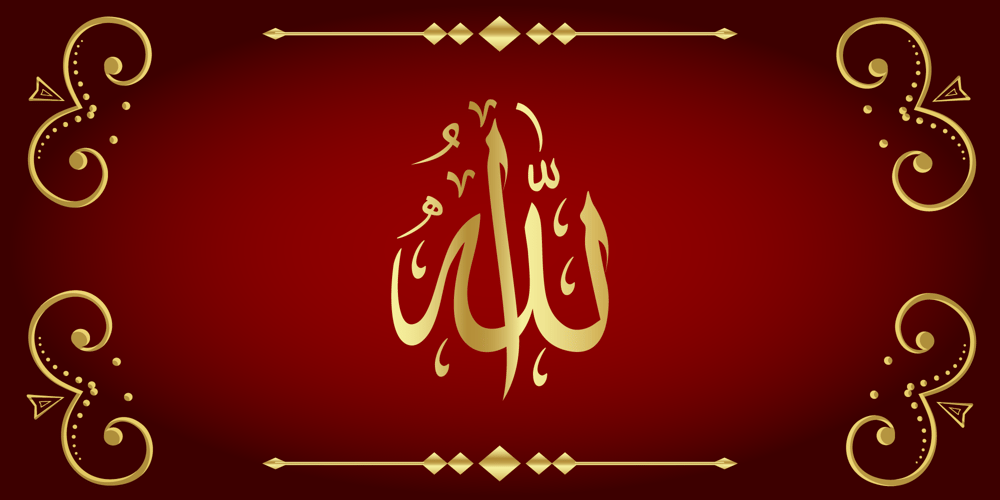
99 Names of ALLAH Pilot
99 Names of ALLAH Pilot font
99 Names of ALLAH Pilot Font Family was designed by Ibrahim Abdo and published by Islamic Calligraphy75. 99 Names of ALLAH Pilot contains 1 styles and family package options. We have transformed the “99 names of ALLAH” into a font. That means each key on your keyboard represents 1 of the 99 names of ALLAH Aaza Wajal. The fonts work with both the English and Arabic Keyboards.We call this Calligraphy “Pilot” because it was the very first one we produced. The first “Alef” doesn’t have a “hamzit wasel” nor a “fatha”, this indicates to skip the pronunciation of that letter. So instead of saying “AR-RAHMAAN” you say “R-RAHMAN”. (in the zip file you will find a pdf file explaining the differences in the “harakat”, pronunciation and spelling according to the Holy Quran). Decorative letters used in this calligraphy: “Mim, Aain, Sin, HHe, He, Kaf & Alef”.Purpose & use:- Writers: Highlight the names in your texts in beautiful Islamic calligraphy.- Editors: Use with kinetic typography templates (AE) & editing software. – Designers: The very small details in the names does not affect the quality. Rest assured it is flawless.The MOST IMPORTANT THING about this list is that all the names are 100% ERROR FREE, and you can USE THEM WITH YOUR EYES CLOSED. All the “Tachkilat” are 100% ERROR FREE, all the “Spelling” is 100% ERROR FREE, and they all have been written in accordance with the Holy Quran. No names are missing and no names are duplicated. The list is complete “99 names +1”. The +1 is the name “ALLAH” ‘Aza wajal.Another important thing is how we use the decorative letters. In every font you will see small decorative letters, these letters are used only in accordance with their respective letters to indicate pronunciation & we don’t include them randomly. That means “mim” on top or below the letter “mim”, “sin” on top or below the letter “sin”, and so on and so forth.Included:Pdf file telling you which key is associated with which name.In that same file we have included the transliteration and explication of all 99 names.Pdf file explaining the differences in the harakat and pronunciation according to the Holy Quran.Here is a link to all the extra files you will need:https://drive.google.com/drive/folders/1Xj2Q8hhmfKD7stY6RILhKPiPfePpI9U4?usp=sharing